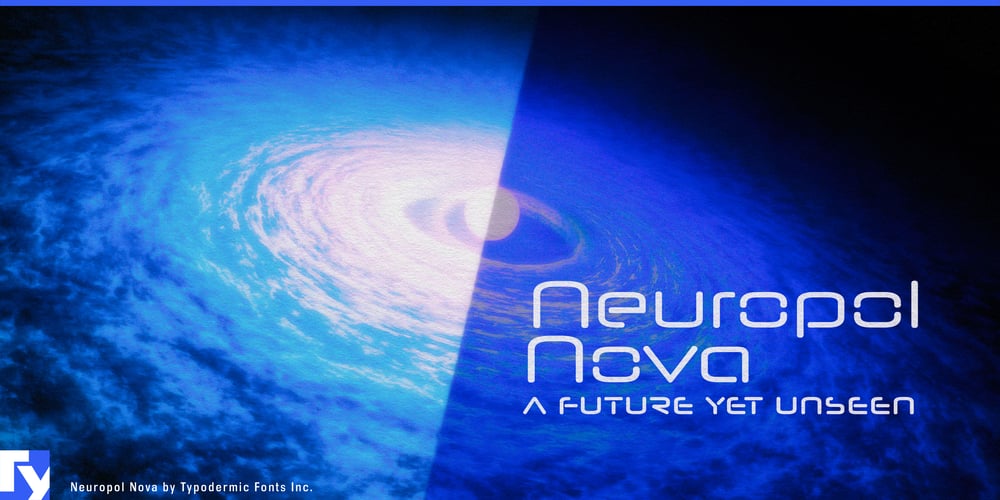
Neuropol Nova Font Family was designed by Ray Larabie and published by Typodermic. Neuropol Nova contains 18 styles and family package options. Attention, visionaries of the digital frontier! Prepare to interface with Neuropol Nova, the typeface that’s more cutting-edge than a quantum computer’s processing unit. This isn’t just a font—it’s a wormhole to a future where typography has evolved beyond our primitive 21st-century understanding.Imagine letters so sleek, they make your current UI look like it was designed by a Neanderthal banging rocks together. Neuropol Nova doesn’t just push the envelope of letterform recognition; it disintegrates that envelope and reassembles it in a dimension where the laws of typography don’t apply. Each character is a masterclass in minimalist futurism, stripped down to its bare essentials like a robot built for maximum efficiency. But don’t mistake simplicity for lack of versatility. With three widths, three weights, and italics, Neuropol Nova gives you more options than a choose-your-own-adventure novel set in a multiverse. Want your headline to look like it was transmitted from the year 3000? Bam! Need your logo to scream “I come in peace, but I’m cooler than you”? Neuropol Nova’s got you covered.This typeface doesn’t just nod to sci-fi; it IS sci-fi. It’s the font you’d find on the control panel of a starship, or in the user manual for your new cybernetic implant. Its sparsely connected patterns aren’t just letters; they’re a visual representation of the data streams flowing through the matrix. And let’s talk about linguistic range. Neuropol Nova supports more Latin-based European writing systems than you can shake a universal translator at. It’s ready to take your message to the far corners of our galaxy and beyond, from Albanian space stations to Zuni colonies on Mars.So, whether you’re designing the interface for the next generation of AI, creating promotional materials for the first lunar nightclub, or just want your coffee shop menu to look like it’s been beamed down from the Andromeda galaxy, Neuropol Nova is your ticket to typographic transcendence.